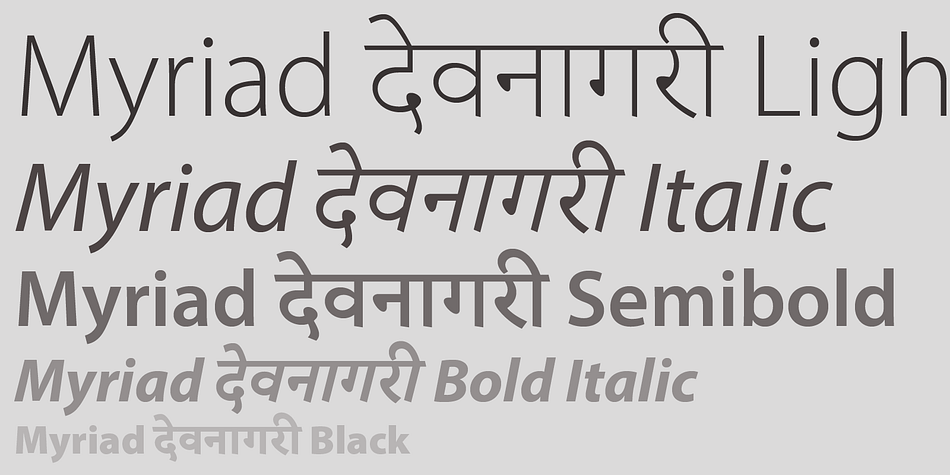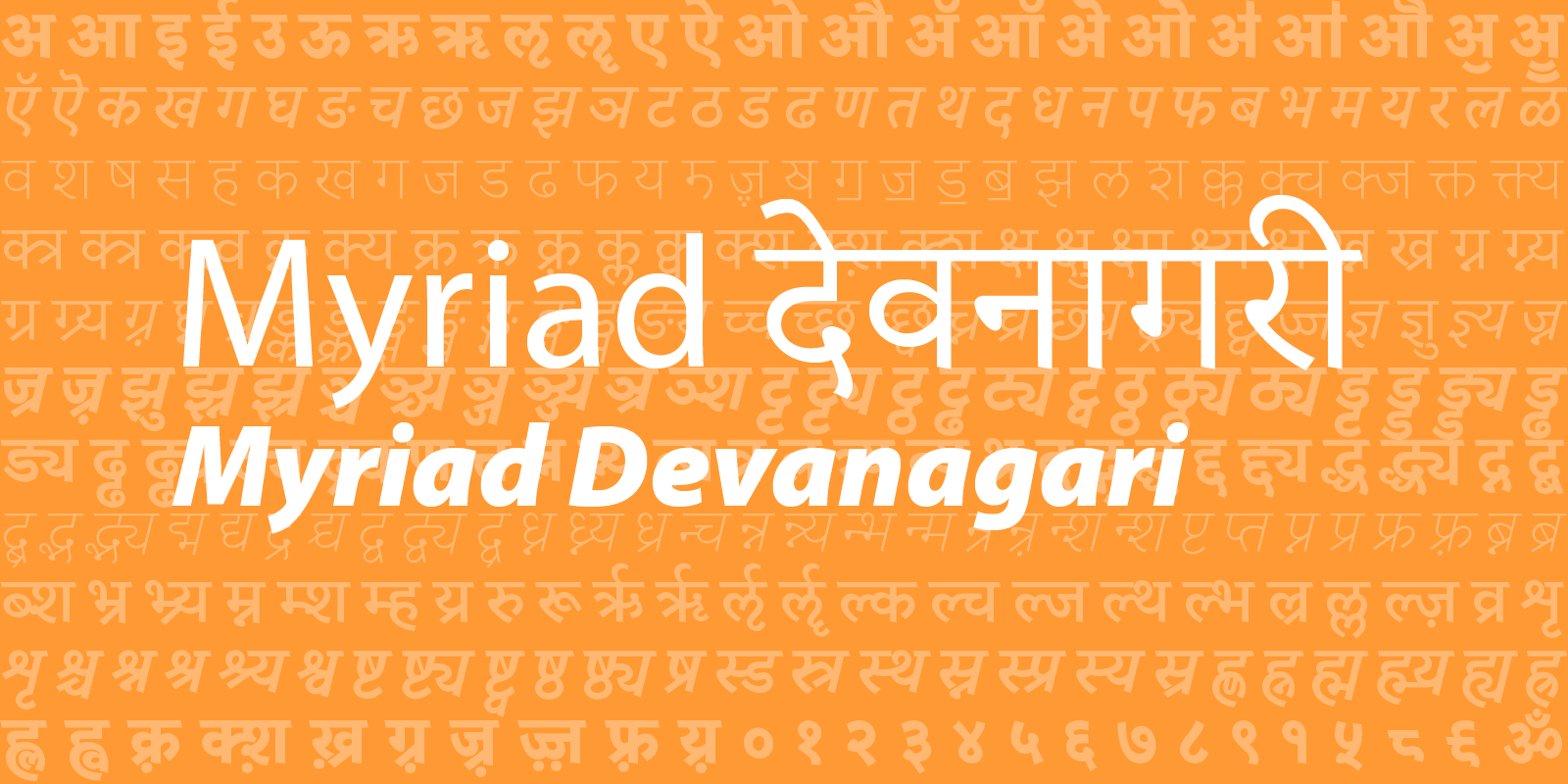
Myriad® Devanagari is a sans serif font family. This typeface has ten styles and was published by Adobe.
Myriad Devanagari was designed with clarity for screen display in mind and makes a strong impression in any setting, avoiding a dull, heavy texture that can be a pitfall for many sans serifs. Designed by Vaibhav Singh, this extension of Adobe’s best-loved sans serif design provides a powerful range of typographic options typically unavailable for this writing system. Myriad Devanagari includes 10 styles, featuring five weights from light to black with accompanying obliques. Hindi, Marathi, Nepali, and Sanskrit languages are supported.